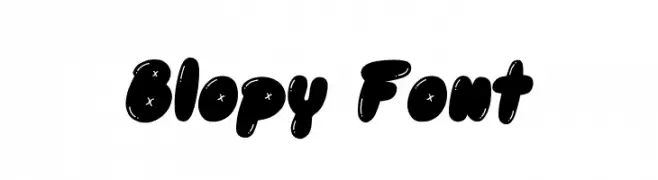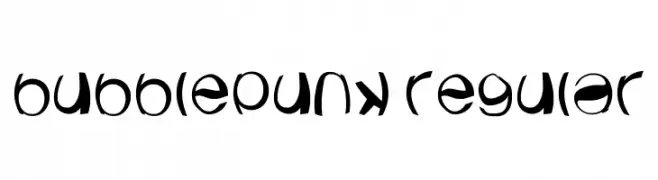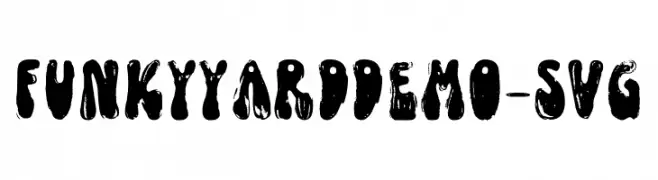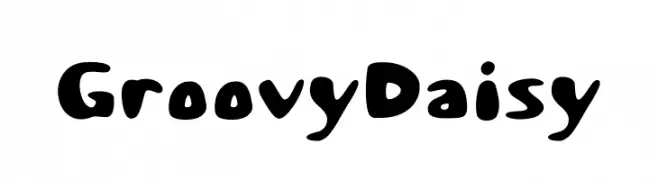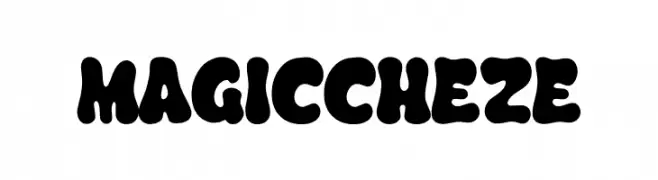
A playful, bold font with rounded, bubbly forms perfect for retro-themed designs.
A playful, bold font with rounded characters and whimsical star accents.
A playful, bubbly font with thick strokes and rounded letterforms.
A playful, wavy font with a fluid, dynamic appearance.
A playful, rounded font with a hand-drawn, whimsical style.
A bold, expressive brush-style font with dynamic, hand-painted strokes.
A bold, playful font with a retro, psychedelic vibe.
A bold, artistic font with a playful, brush-painted appearance.
A playful, bold font with rounded, bubbly characters and a retro-modern style.
A bold, playful font with thick, rounded characters and high contrast.